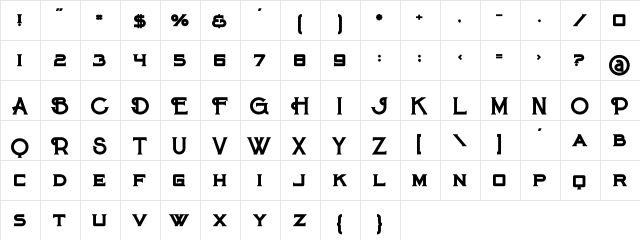
Maroon Bold Bold
Design Context for Maroon Bold Typeface
Maroon Bold offers clean, dependable letterforms without strong stylistic allegiance, making it a practical choice for designers who need flexibility. The heavy weight commands attention and anchors typographic hierarchies.
Pro Tip: Pair Maroon Bold with a font of contrasting weight or personality to build a more expressive typographic hierarchy.